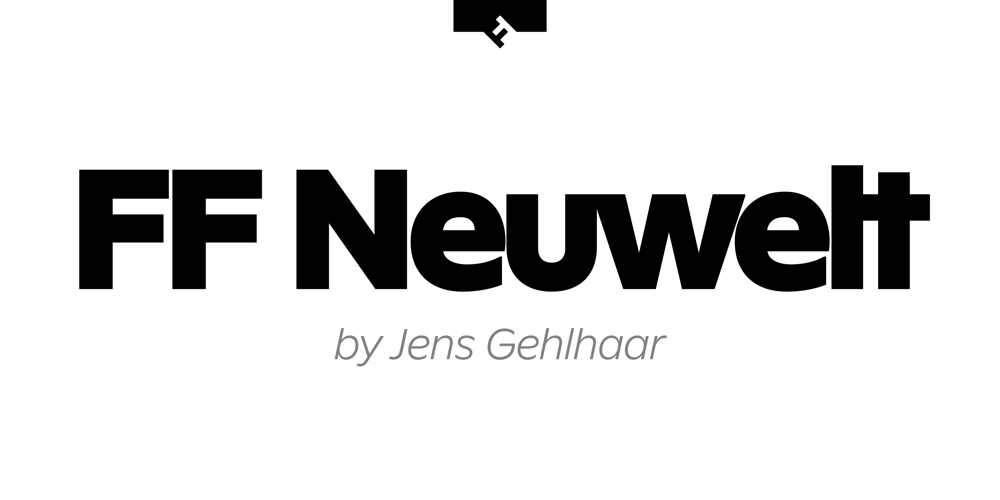
FF Neuwelt
FF Neuwelt font
FF Neuwelt Font Family was designed by Jens Gehlhaar and published by FontFont. FF Neuwelt contains 33 styles and family package options. FF Neuwelt™, from Jens Gehlhaar, is open, inviting, highly legible, and strikingly handsome. Combining the straightforward clarity of a geometric sans with a welcoming warmth, FF Neuwelt’s eight display and text weights, vast range of alternates and extended character set, make for a family with few limitations. While grounded in a solid geometric sans serif foundation, Gehlhaar has drawn a large suite of alternate characters that infuses FF Neuwelt with softened, and ultimately easy on the eyes, humanistic shapes and proportions. Alternative cursive italic forms and a choice of round or square punctuation are also available at the click of a mouse. FF Neuwelt is spaced for sizes larger than 16 point, while FF Neuwelt Text has more open letterspacing to set perfectly at sizes smaller than 16 point. In addition, five key lowercase characters were drawn with more legible shapes. The result is that FF Neuwelt adapts from text to larger sizes and one stylistic mien to another with ease and grace. FF Neuwelt is a natural for interactive design, performing well on both large digital displays and small screens. Counters are generous and apertures are open, making them a perfect choice when setting text as microcopy or in short blocks where quick and accurate comprehension is the goal. Even the heaviest weights translate well to on-screen reading. FF Neuwelt also speaks with authority in large sizes on big screens. Equally at home in print environments, FF Neuwelt is a perfect choice for long-form text, captions, editorial, packaging, point-of-purchase design – as well as extensive branding projects. Its many choices of alternative characters make for a design that draws the reader in, without overpowering the message. Although he has drawn typefaces in addition to FF Neuwelt, Gehlhaar is primarily a filmmaker. Directing commercials with style and grace, his work includes spots for Nissan, Apple, Emirates Airlines and Microsoft. As a creative director, Gehlhaar has worked on a broad range of projects for Coca-Cola, MTV, EPSN, Volkswagen and more.